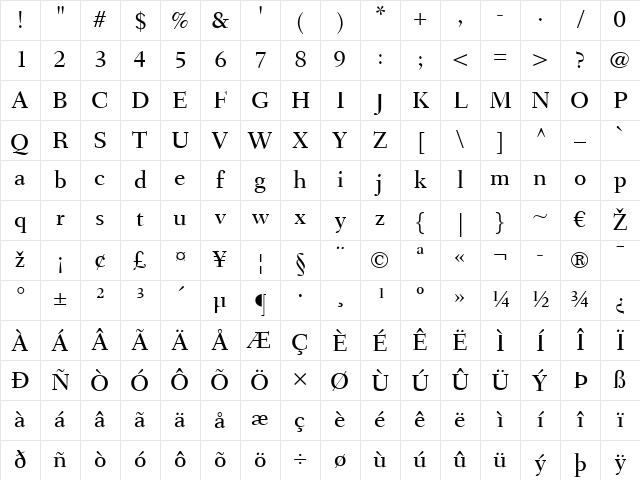
Fairfield LT Medium Regular
Design Context for Fairfield LT Medium
Fairfield LT Medium is a composed and adaptable typeface that performs quietly and consistently across a wide range of design contexts. Its slender proportions lend an understated elegance to any composition.